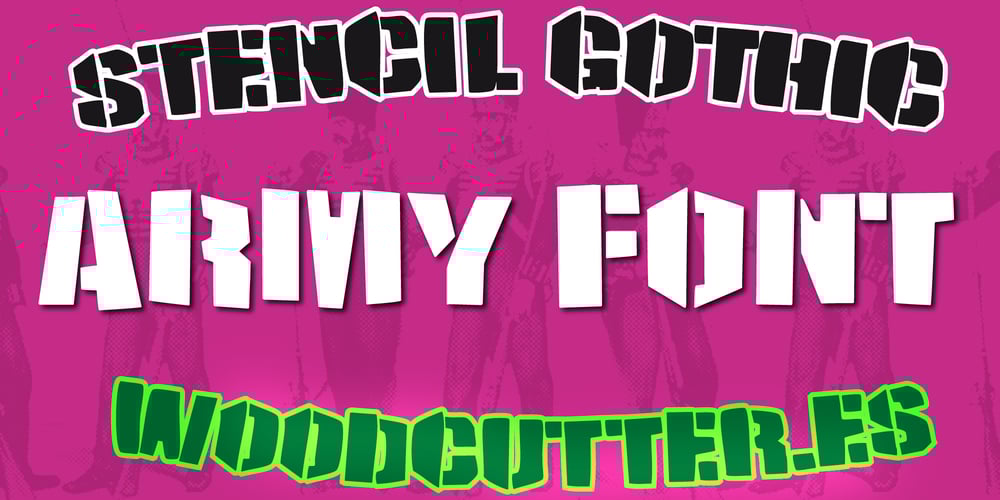
Stencil Gothic Font Family was designed by Jordi Manero and published by Woodcutter. Stencil Gothic contains 1 styles and family package options. “Stencil Gothic” is an uppercase font that combines the solidity of stencil-style letters with a unique gothic touch. Its strokes are strong, defined, and structured, with the characteristic cuts of stencils, giving it an industrial and robust appearance. Despite its hardness, it maintains an elegant aesthetic, making it suitable for both modern and classic designs. It includes accents, allowing for use in multiple languages. Perfect for posters, logos, or projects that require a strong visual impact with a sophisticated yet functional vibe.